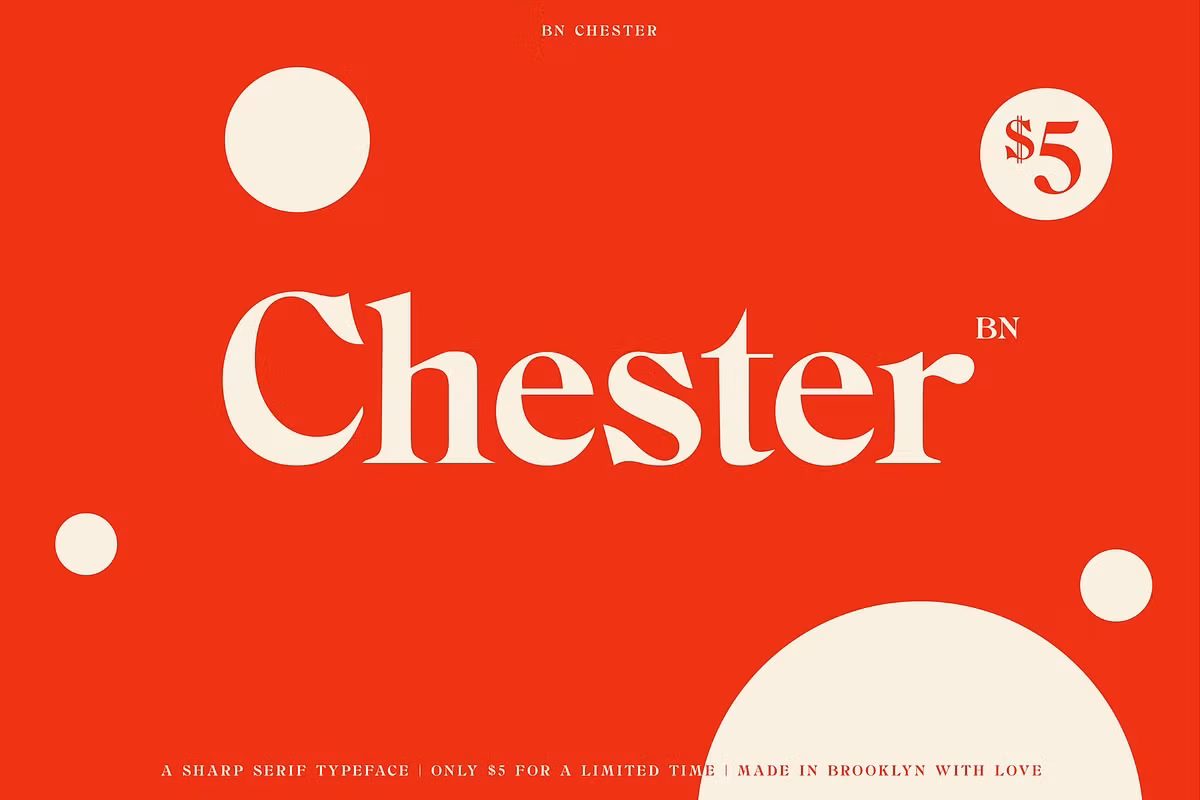
BN Chester - A Unique Serif Font Free Download
BN Chester - A Unique Serif Font Free Download is a distinctive and elegant serif typeface designed to bring sophistication and character to your designs. Featuring bold and sharp serifs with refined details, BN Chester is perfect for a wide range of creative projects, including branding, editorial design, luxury packaging, and more.
The font combines classic serif elements with modern proportions, making it versatile enough for both large headlines and smaller text. Whether you're working on a chic logo, a stylish magazine layout, or a premium product label, BN Chester offers a sophisticated, timeless look.